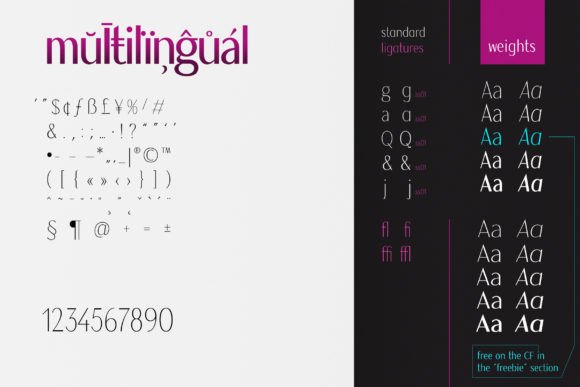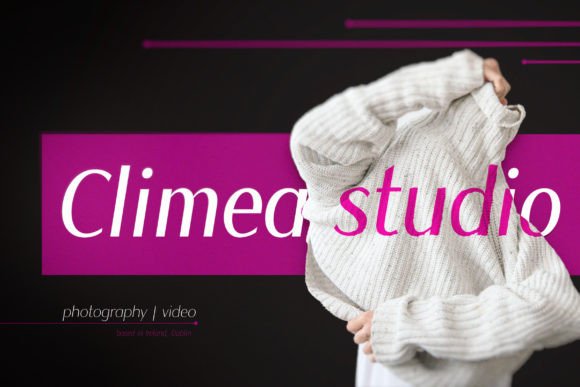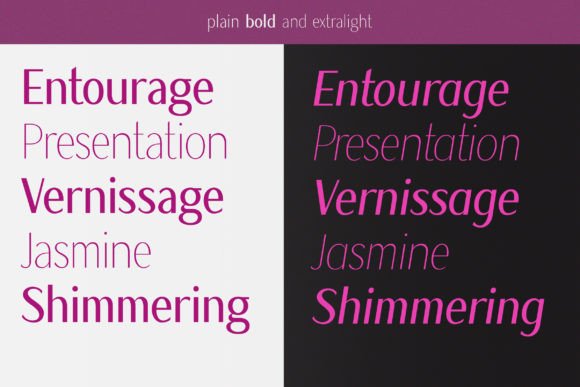
Magnisa Sans Font
About the Magnisa Sans Font
Presenting Magnisa Sans Font, a unique and stylish typeface that will make your work stand out. Magnisa Sans is an exquisite and chic sans-serif font that is a perfect blend of elegance and modernity. With a clean and sleek design, this font exudes sophistication and style, making it perfect for luxury branding, editorial design, and other high-end projects. Its versatile nature makes it a go-to choice for any designer looking to create a polished and refined look.
Magnisa Sans excels in headline use, short-form text, and branding applications where a sophisticated yet approachable aesthetic is desired. It works beautifully for logos, short marketing copy, and packaging designs for high-end products. However, its elegance might prove less effective for lengthy body text or user interface elements; its refined letterforms can become visually tiring at smaller sizes or in dense blocks.
Pairing Magnisa Sans with a complementary typeface enhances its impact. Consider pairing it with a warm, slightly rounded serif like Lora for a balanced contrast, or a geometric sans-serif like Roboto for a more modern feel. A delicate script font could add a touch of luxury for specific applications, while a neutral sans-serif like Open Sans provides a legible supporting text option.
The overall personality of Magnisa Sans is sophisticated and modern, leaning toward elegance without sacrificing approachability. It projects confidence and quality, making it ideal for brands aiming for a refined and stylish image.
Magnisa Sans Font Usage Examples
Magnisa Sans Font Example